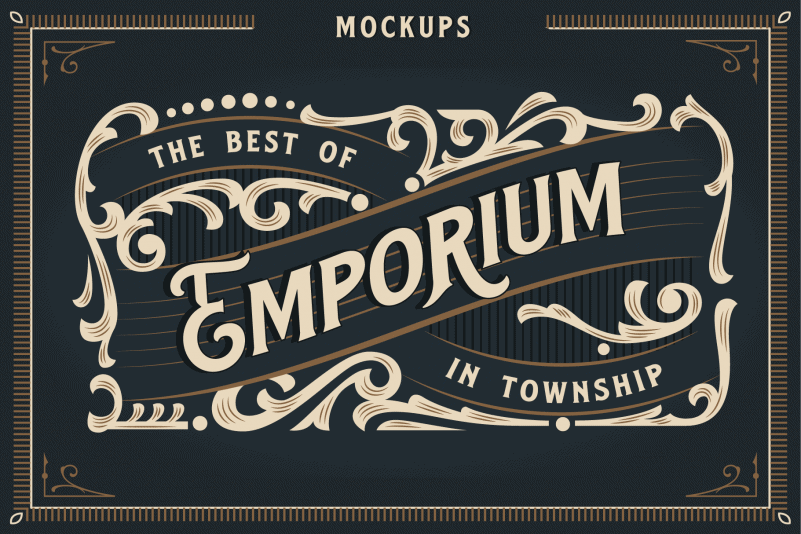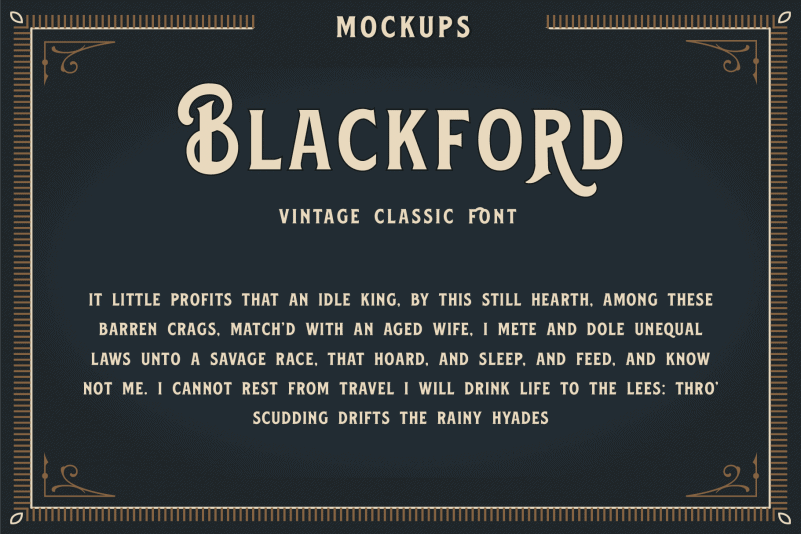
Blackford Display Font
Blackford Display Font is a new classic vintage font inspired by old packaging and labels. This font is completely perfect match with your vintage logo design, invitation, or labels. You can also mix this font with any Victorian ornaments. You can use this vintage font for creating the lettering logo, display headline on your magazine or any retro-themed projects.